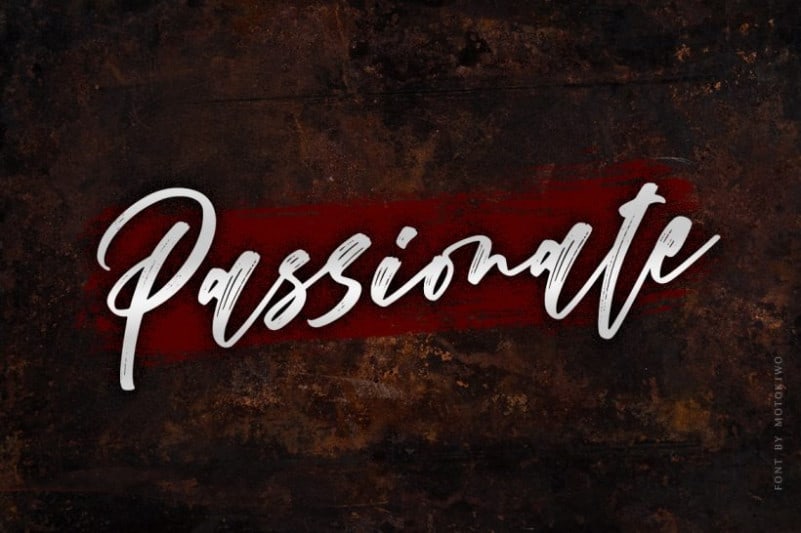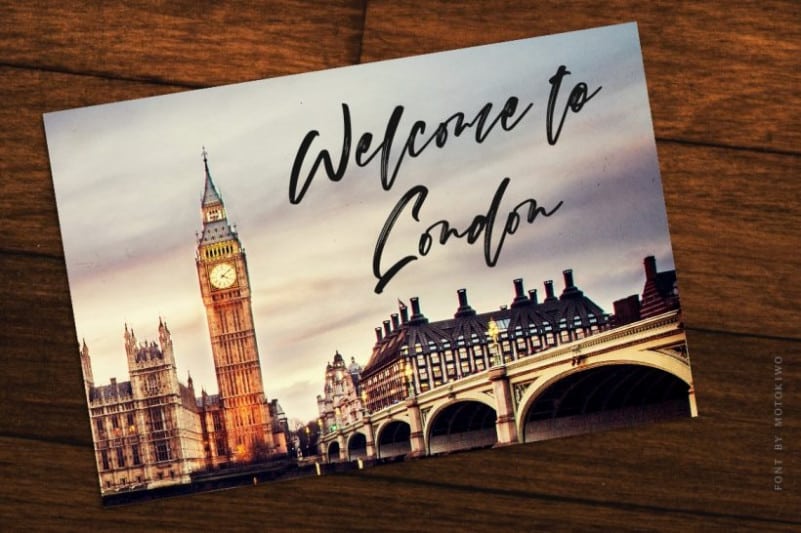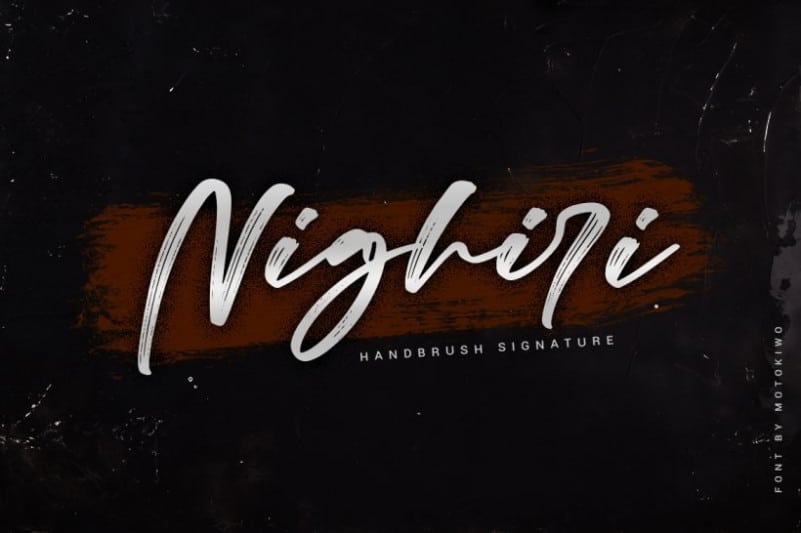
Introducing Nighiri Brush Font. Works well if you pair this font with almost every sans serif typeface. Give your designs an authentic brush handcrafted feel. This typeface is designed and shared by Motokiwo. A classy and elegant handbrush signature typeface that will shine for multipurpose project. Nighiri very recommended for poster, logo, headline, quote, wedding, branding, fashion, or anything else you want. It’s good for display or just a text.